20 Free Script Fonts Perfect For Designers
There are literally thousands of free script fonts available throughout the web, making finding the perfect one a daunting task. We’re lucky that a few talented typeface designers release a free script font on occasion and, if we know where to look, we can add it to our type collection. Here I have listed 20 of my favorite free script fonts.
Cylburn
Cylburn is a slightly elegant script font, one which I use quite often. Offered by the Lost Type Co-op, you choose the price from $0 on up.
Handletter
Handletter has a bit of an urban feel to it and is provided by The Hungry JPEG. You’ll have to create a free account to access the freebies, it’s worth it.
Allura
Allura has a very elegant style with a slightly wide stature. It can be picked up over at Font Squirrel and is shipped in one weight.
Mission Script
Mission Script is slightly condensed and is a great option for signage. The download is offered by Lost Type Co-op, where you choose the price.
Nickainley
Nickainley is a well-crafted monoline script that has a great flow to it. You can download it at The Hungry JPEG with your free account.
Pacifico
Pacifico is a fun script font that was inspired by the 1950s American surf culture. Use it as a webfont or download it at Google Fonts.
Great Vibes
Great Vibes is a nice calligraphic script with some decorative uppercase letters. You can download it from Font Squirrel in its regular weight.
Gardenia
Gardenia is a fun handwritten script that ships with a bonus of 90 different hand-drawn floral ornaments. You can get it for free from Pixel Buddha.
Variane
Variane, with its medium weight and almost monoline appearance, is one of my favorites. You’ll need to create a free account at The Hungry JPEG to acquire it.
Honey Script
Honey Script reminds me of a classic 50’s font. Also one of my favorites, it can be downloaded at 1001 Fonts in two weights.
Cookie
Cookie is your standard script font, just the right amount of character and very legible. Google Fonts offers it as a download or as a webfont.
Lavanderia
Apart from its style, the countless opentype features make Lavanderia a must-have. Pick your price from $0 on up at Lost Type Co-op.
Arizonia
Arizonia marches to the beat of its own drum with its unique styling. It can be used as a webfont or you can download it to your computer at Google Fonts.
Bobbie
Bobbie is a great handwritten typeface with just enough character to set it apart from pack. With your free account, you can grab it from The Hungry JPEG.
Reklame
Reklame came out in 2010 and was influenced by the handlettering of advertisements from the 40s and 50s. Try out the demo for free and purchase, if you like, from MyFonts.
Wisdom Script
Wisdom Script is a sturdy, yet unique script font with a nice medium weight. Another winner from Lost Type Co-op, you pick the price you pay for the download.
Rochester
Rochester carries a very formal style that was inspired by the early age of Victorian and Art Deco. Use it as a webfont or download the .zip in Google Fonts.
Dancing Script
Dancing Script is a casual and playful font where each letter has a slight variation in size. Available in Google Fonts as a webfont or a download.
Alex Brush
Alex Brush has an elegant flow to it with nice and short ascenders and descenders. You can pick it up from Font Squirrel in a single weight.
Eastside
I thought I would save the best for last. Eastside is a beautiful script font that I recently picked up and can’t seem to put down. Grab it from Lost Type Co-op.
Which is Your Favorite?
If I had to pick three favorites it would be Eastside, Variane and Honey Script. Did any of these stand out for you? Let me know in the comments section and feel free to call attention to any beautiful free script fonts that didn’t make the list. If you’re looking for a few paid script fonts that are worth the money, I recently added these three to my collection - Local Brewery, Nexa Rust and Sant’Elia Script.
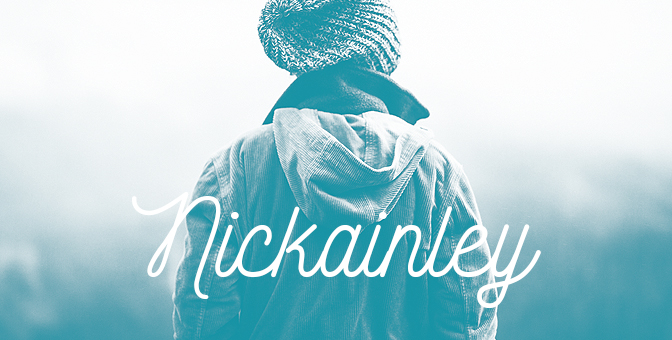
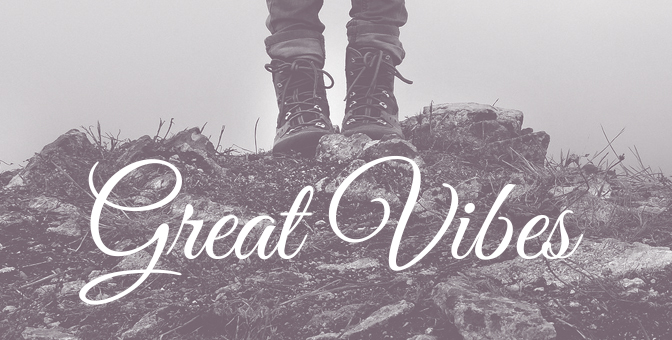
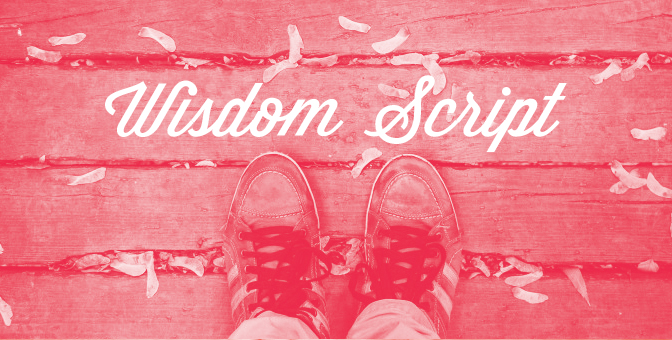
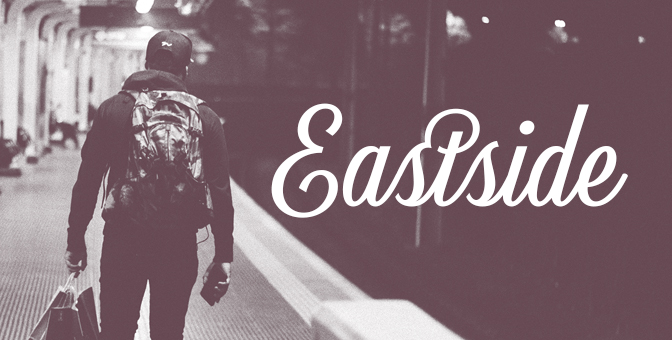
+Add your commentNice collection! I love the Eastside font and just picked it up along with a few others.
Gardenia is a great font. I already had that one, but love the rest of these. I especially like the Alex Brush font. Nice images too.
Eastside, Variane and Pacifico are my favorites. I typically lean towards the more bolder and cleaner script fonts that don’t look so much like calligraphy. Thanks for the roundup!
I love script fonts. I’m downloading several of these. Great list, Shawn!
I love the mockups you put together. I’ll be using many of these fonts in upcoming designs. Thanks!
Some great fonts here. The biggest difference between most free fonts and professional paid fonts is the number of glyphs available and as you mentioned with Lavandria, they typically have more open type features for adding more character to words or specific letters.